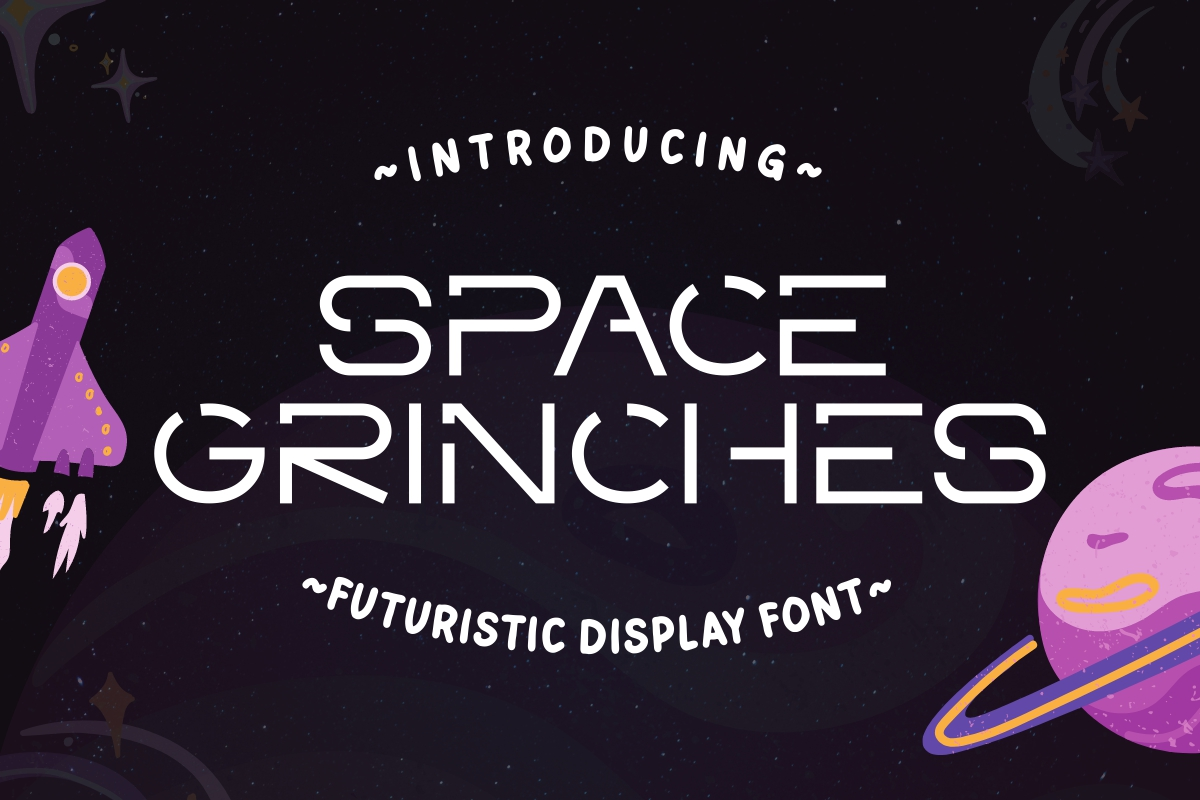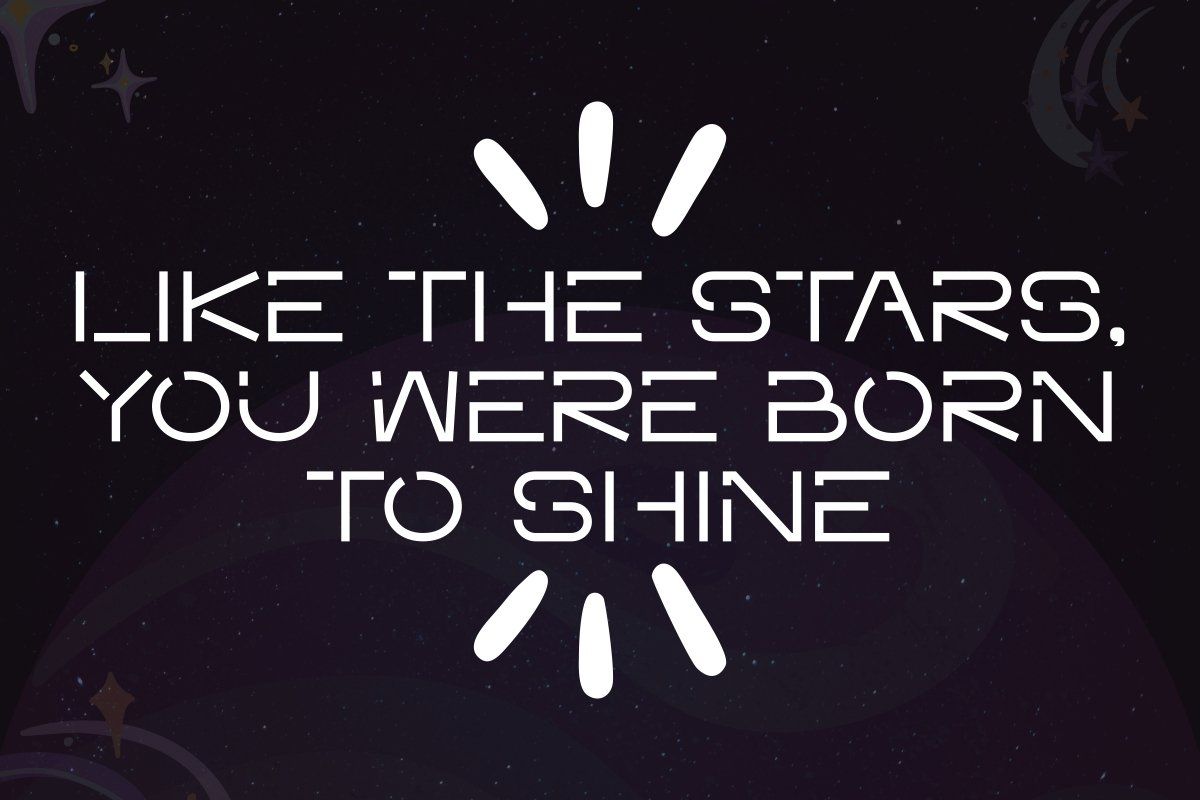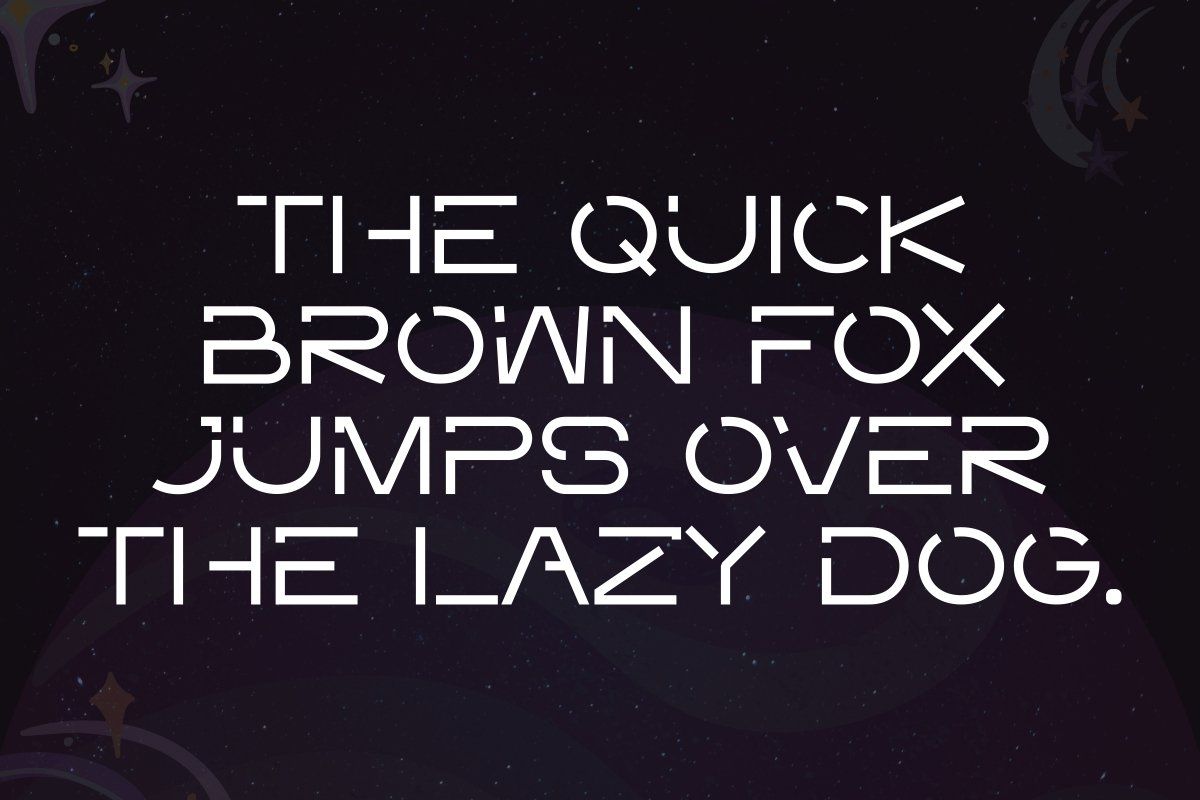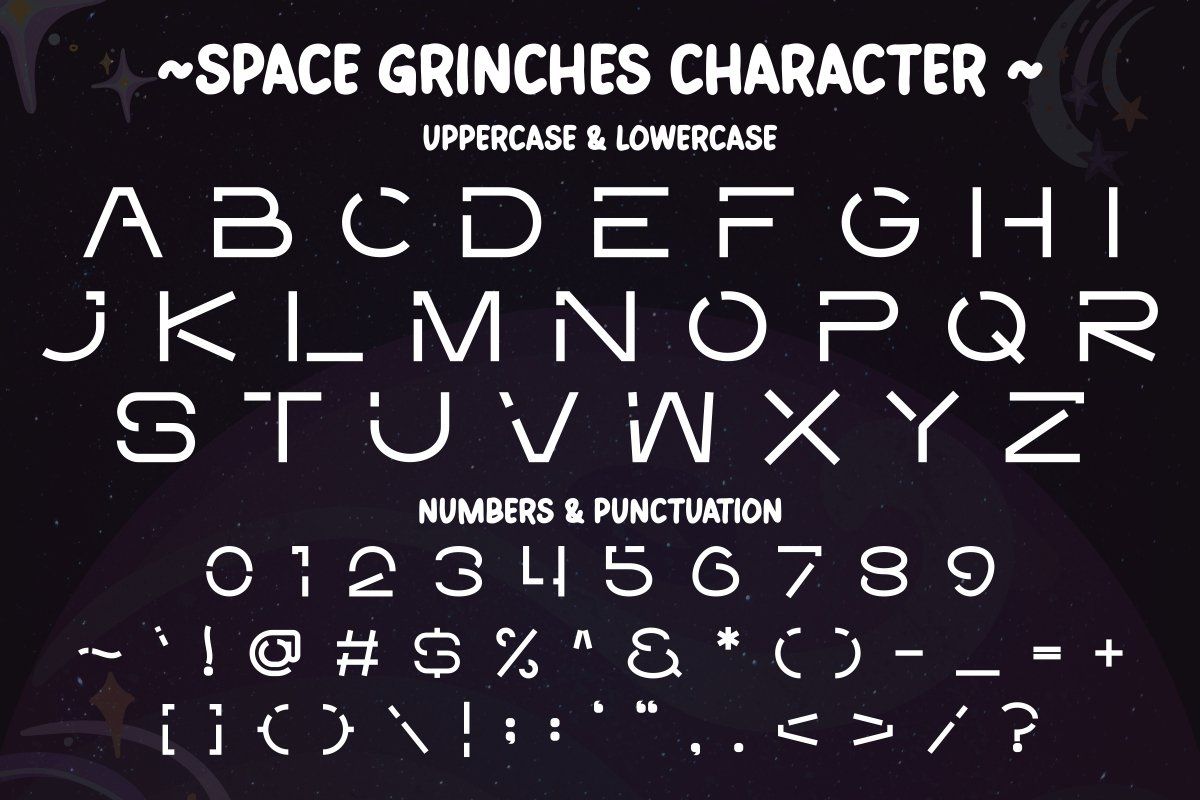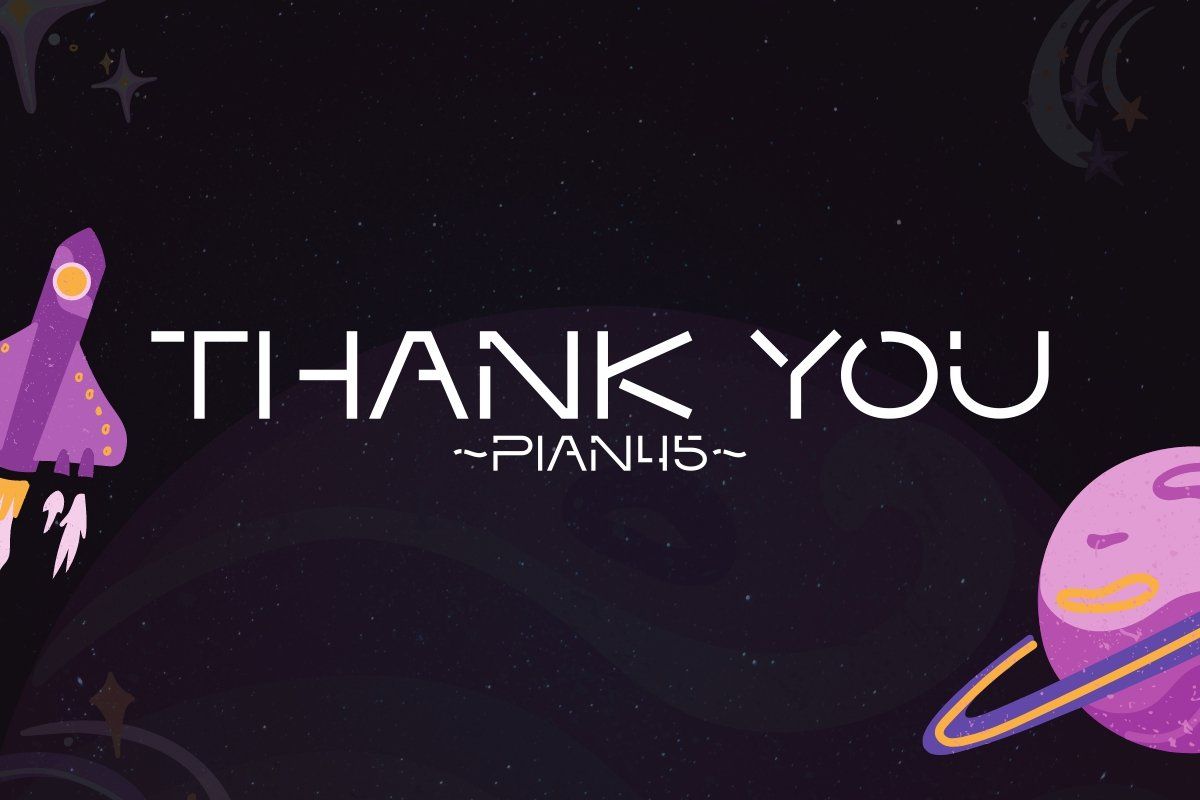
Space Grinches is a modernity cosmic font with futuristic style. Space Grinches is perfect for creating sleek and trendy scifi designs, from space-themed branding to futuristic digital interfaces. Space Grinches is designed to infuse your projects with a sense of intergalactic playfulness and modern flair. This font perfect for Holiday Greetings, Invitations, Gift Wrapping, Decoration, Digital Art, Crafting and others.